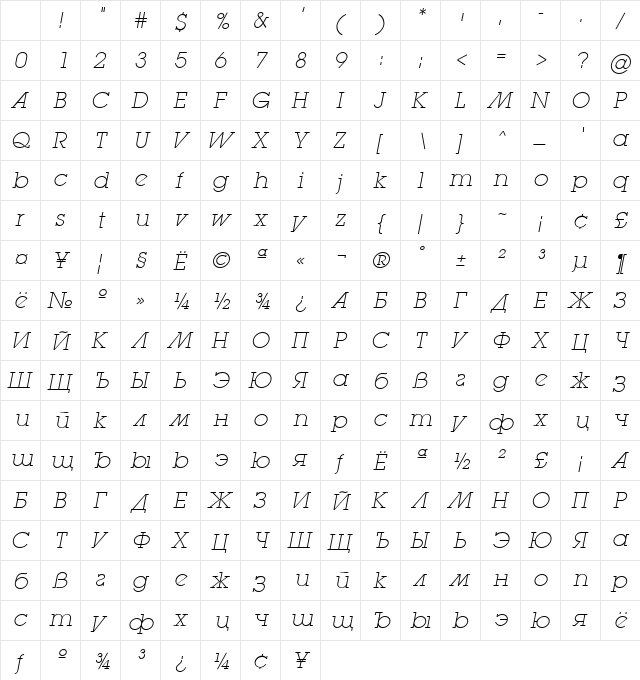
LugaExtraAd is a composed and adaptable typeface that performs quietly and consistently across a wide range of design contexts. The slanted form adds forward momentum and visual energy. Its slender proportions lend an understated elegance to any composition.
Pro Tip: Use LugaExtraAd for emphasis, pull quotes, and subheadings where its slanted energy can add rhythm to the layout.